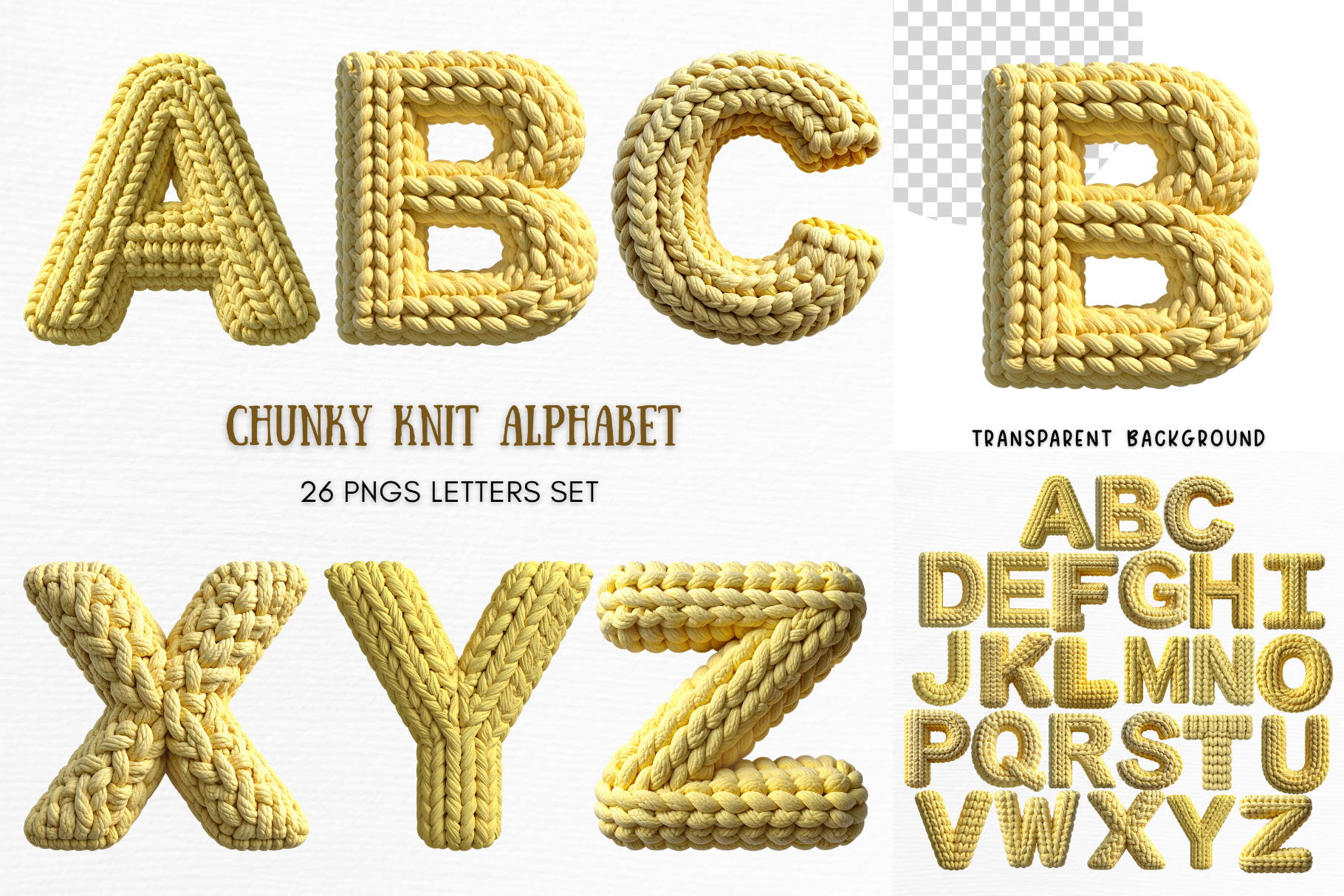
Imagine bringing a touch of softness and sunshine into your creative projects with this yellow knitted alphabet clipart. Each letter is designed to look like it was lovingly crafted from cozy yarn, giving your designs the warmth of handmade charm. Whether you're creating cards, classroom decor, labels, planners, or digital designs, these cozy yarn letters AโZ instantly brighten up your work with a cheerful, textured style.
This set of chunky knit letters and crochet font PNGs is perfect for crafters who love mixing digital art with handmade aesthetics. Every character is rendered in high-resolution PNG format, making it easy to layer, resize, and use across both printable and digital projects. The faux yarn texture adds dimension and a playful softness that helps your design stand out beautifullyโno matter if you're working on branding, scrapbooking, or cute DIY crafts.
With these yellow cozy letters, you get more than clipartโyou get a design element that transforms your projects into something warm, inviting, and joyful. The knitted texture brings a sense of comfort and creativity, making your artwork feel unique and full of personality. Let this charming yarn alphabet elevate your creations and help you design pieces that customers and loved ones will instantly connect with.